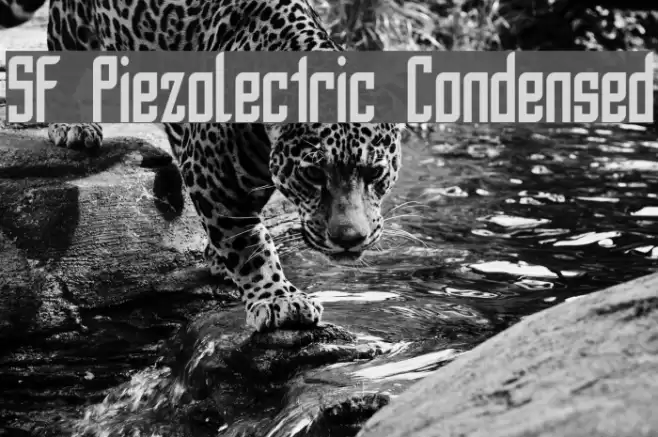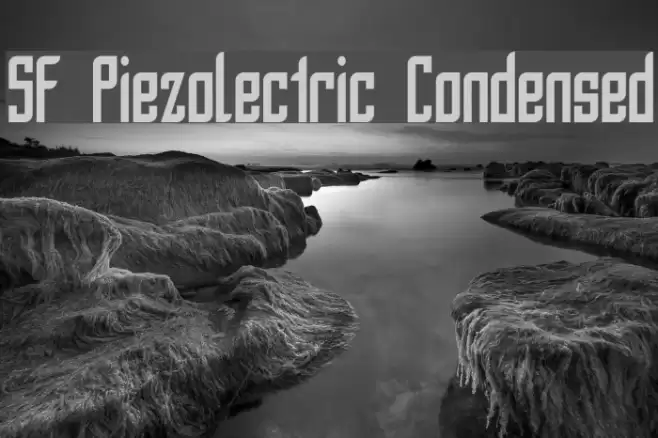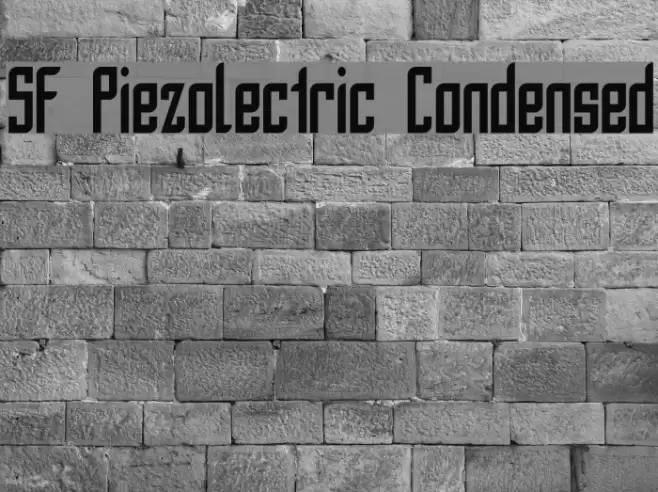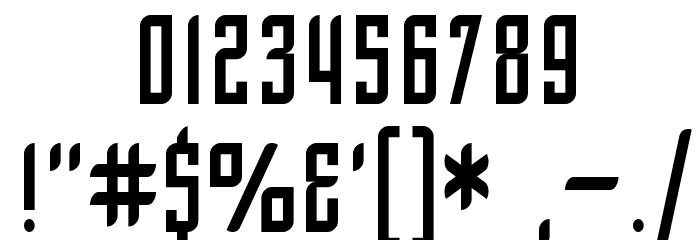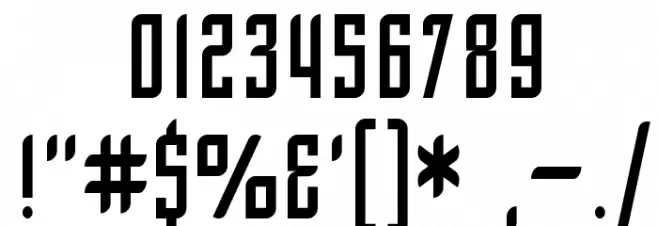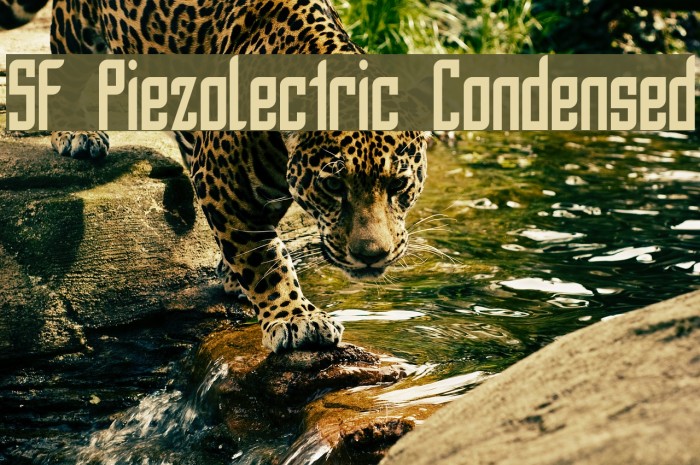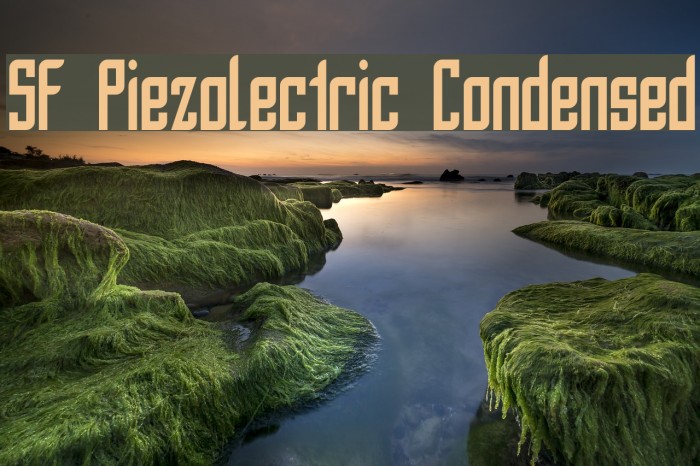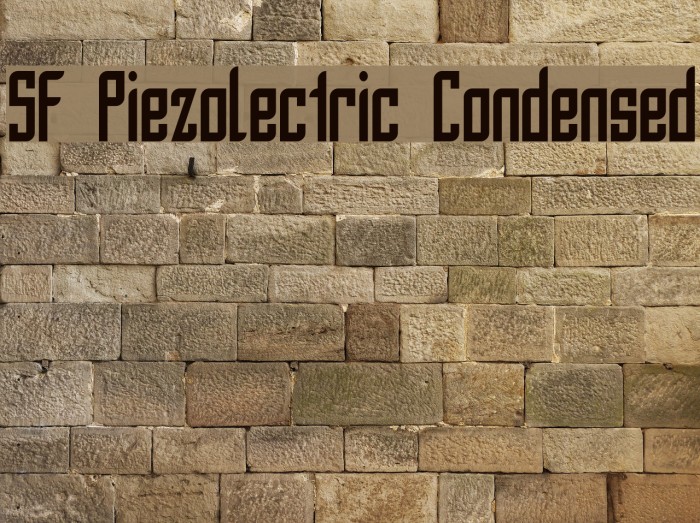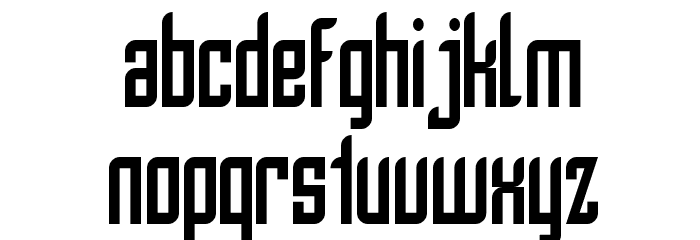
SF Piezolectric Condensed Font
SF Piezolectric Condensed Description
This font features a condensed, geometric design with a modern and futuristic aesthetic. The characters are uniformly structured with straight lines and sharp angles, giving it a technical and industrial feel. The uppercase and lowercase letters maintain a consistent height, enhancing its compact appearance. The numerals and special characters follow the same design principles, ensuring a cohesive look across all glyphs. Its bold strokes and tight spacing make it ideal for impactful displays, while the unique character shapes add a distinctive touch to any project.
A condensed, geometric font with a modern, technical style from Futuristic fonts.
- Proposed Projects: Ideal for technology branding, futuristic posters, and digital interfaces.
- Character Spacing: Tight